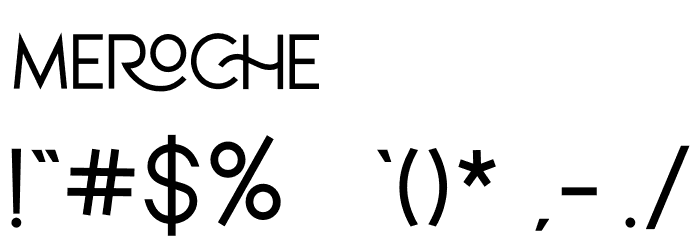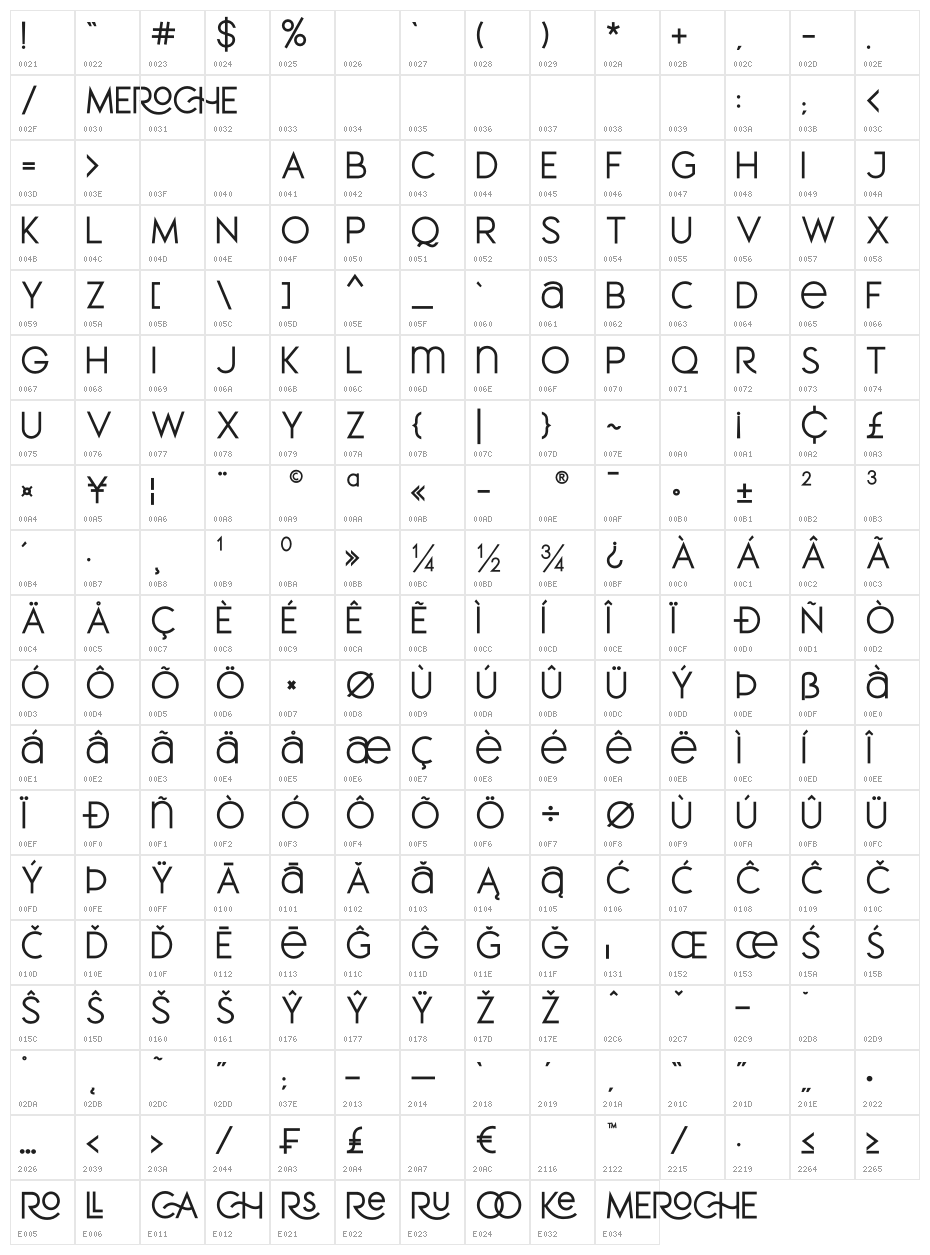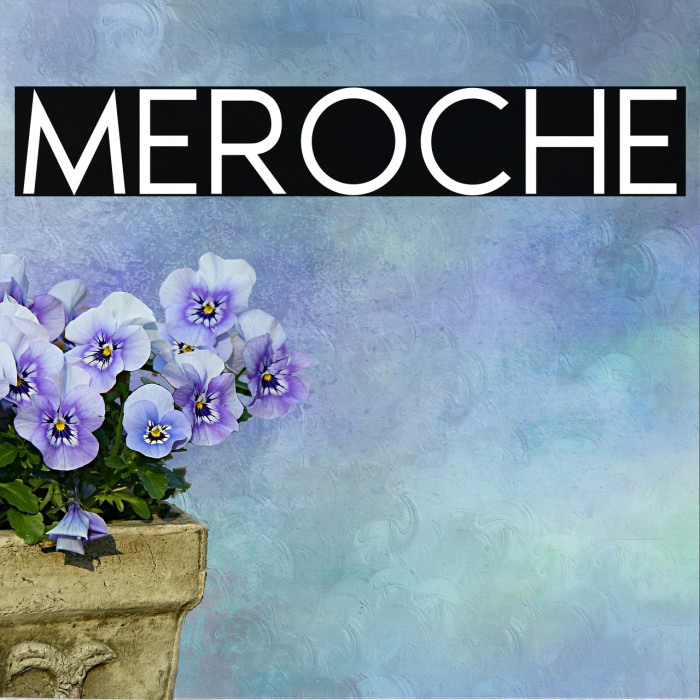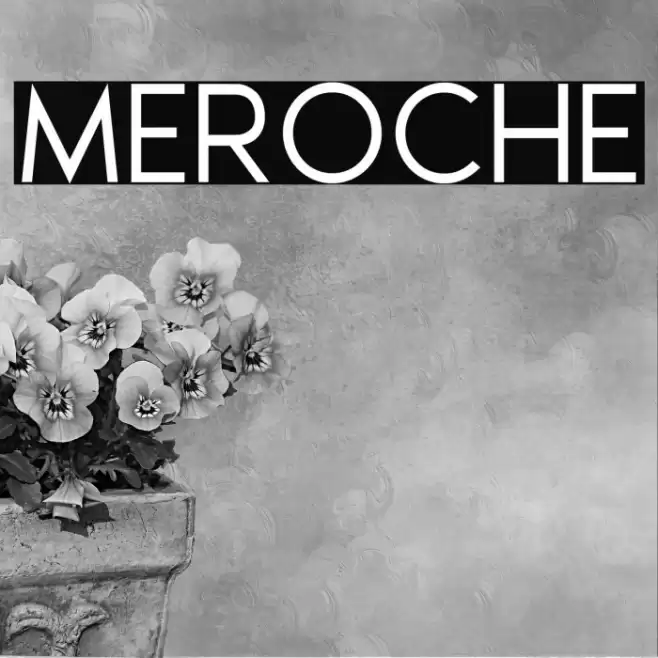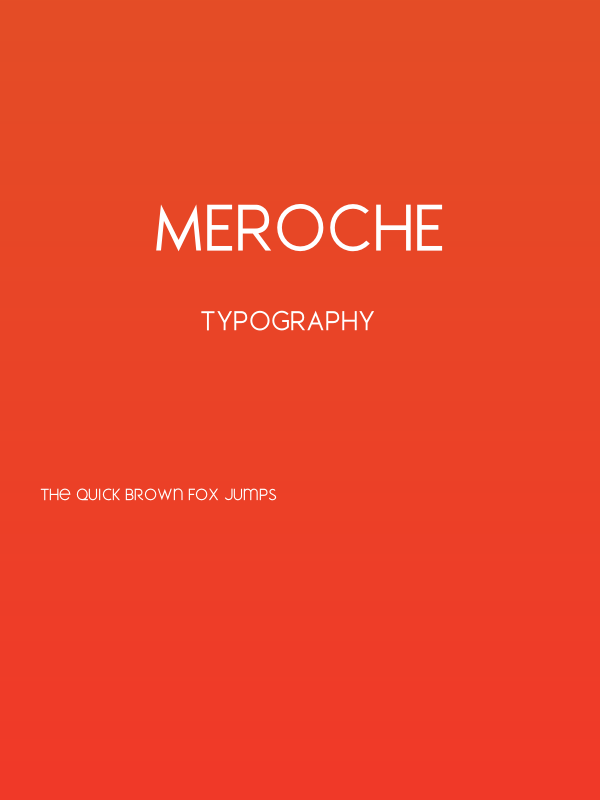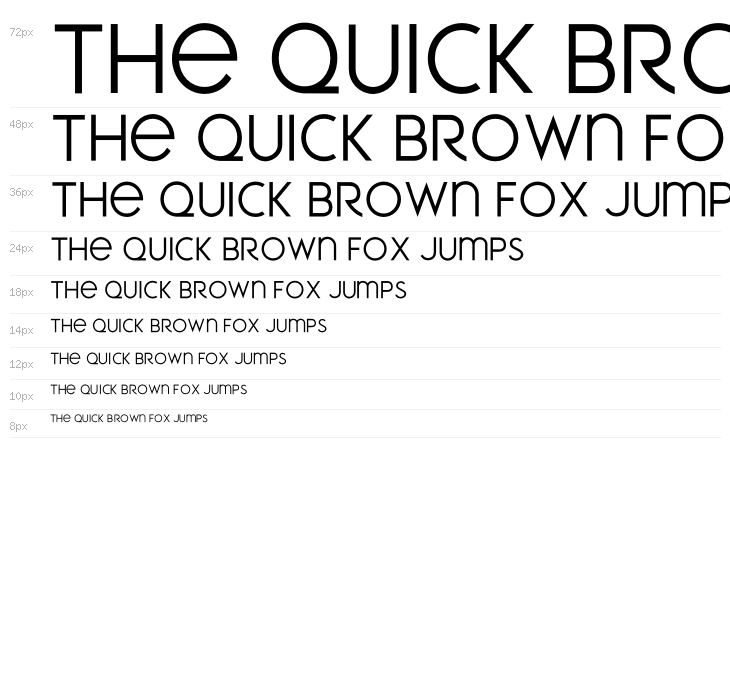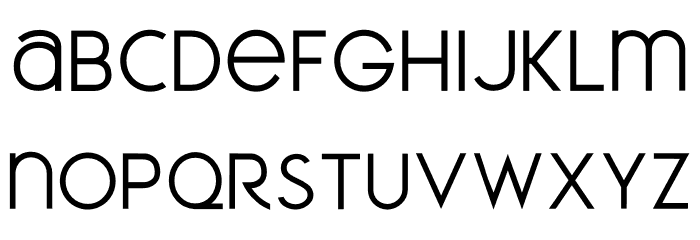
MEROCHE Font
MEROCHE Description
This font features a clean and modern sans-serif style with geometric influences. The characters are uniform in width, contributing to a balanced and harmonious appearance. The uppercase letters are bold and assertive, while the lowercase letters maintain a consistent flow, enhancing readability. The numerals are straightforward and align well with the overall design. Special characters are distinct and maintain the geometric theme, adding versatility to the font. Its simplicity and clarity make it suitable for various design applications.